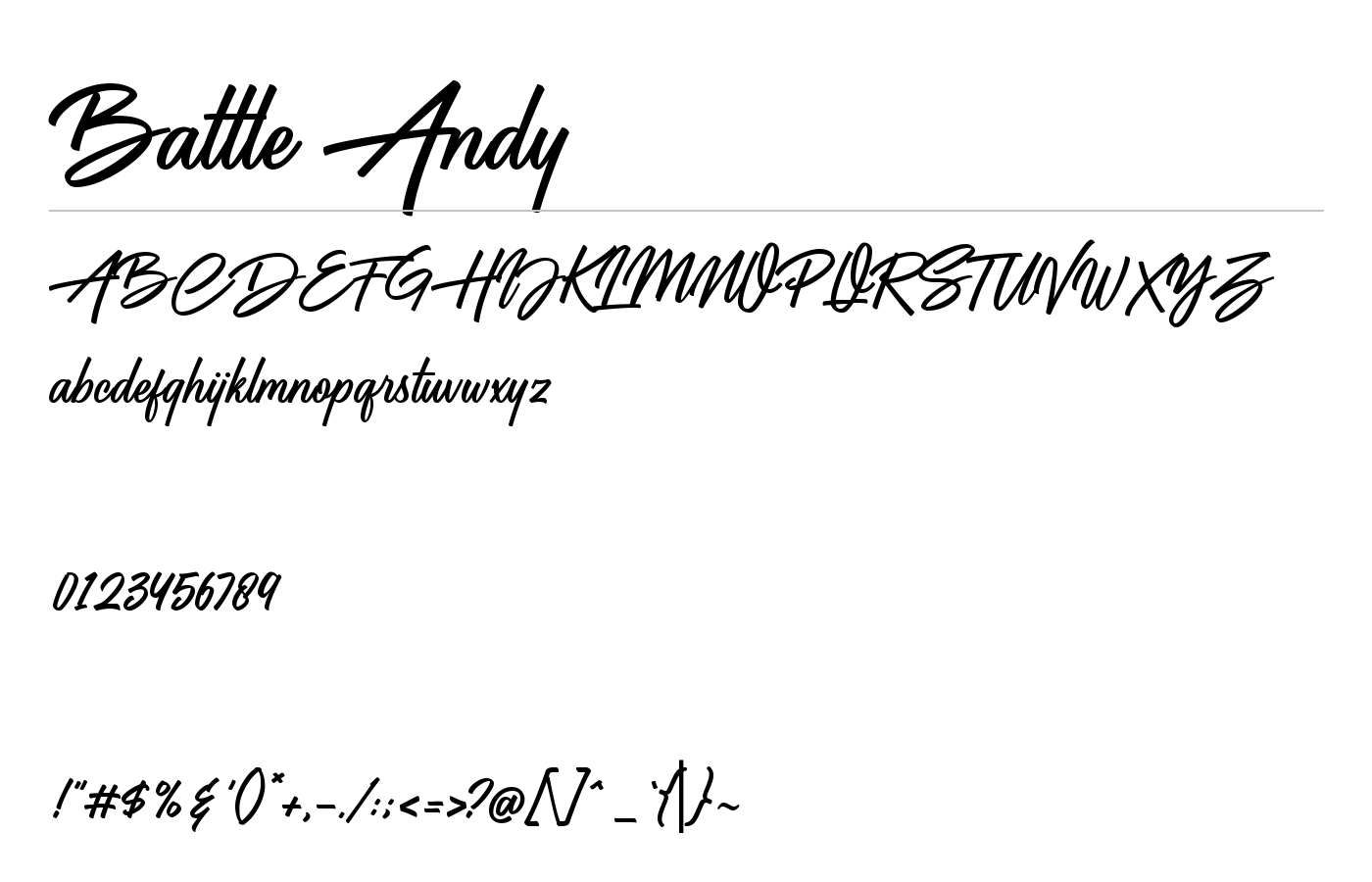
Battle Andy is a lively, modern script font with a dynamic and casual feel, characterized by its smooth, flowing strokes and slightly condensed letterforms. It combines elegance with a handwritten charm, making it perfect for branding, invitations, and creative projects that seek a personal and stylish touch. This font works well in display uses like logos and headlines where a friendly yet sophisticated look is desired.
Battle Andy Font
About Battle Andy Font